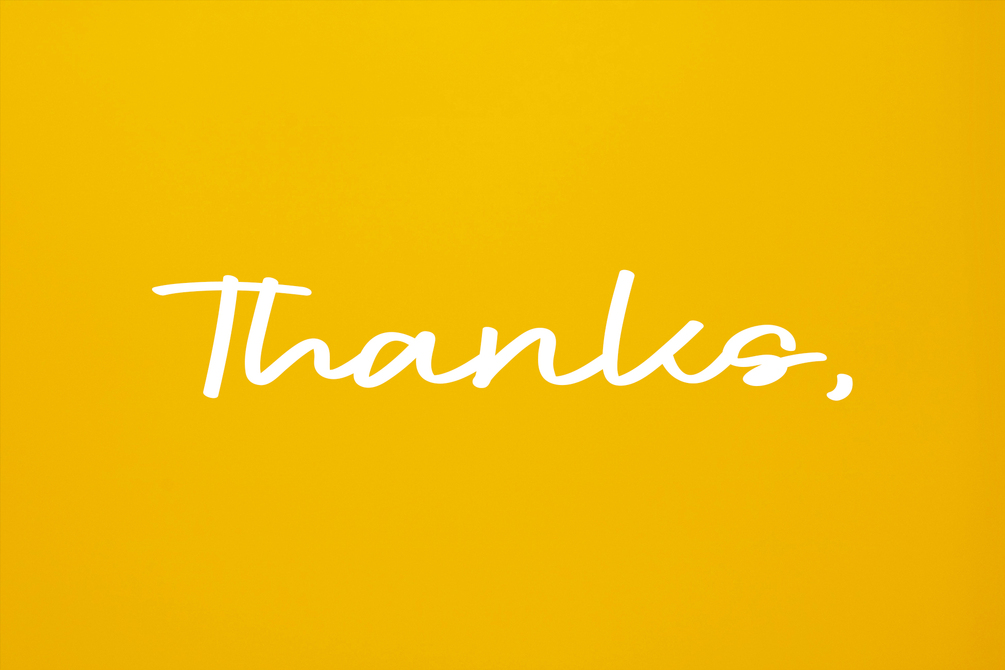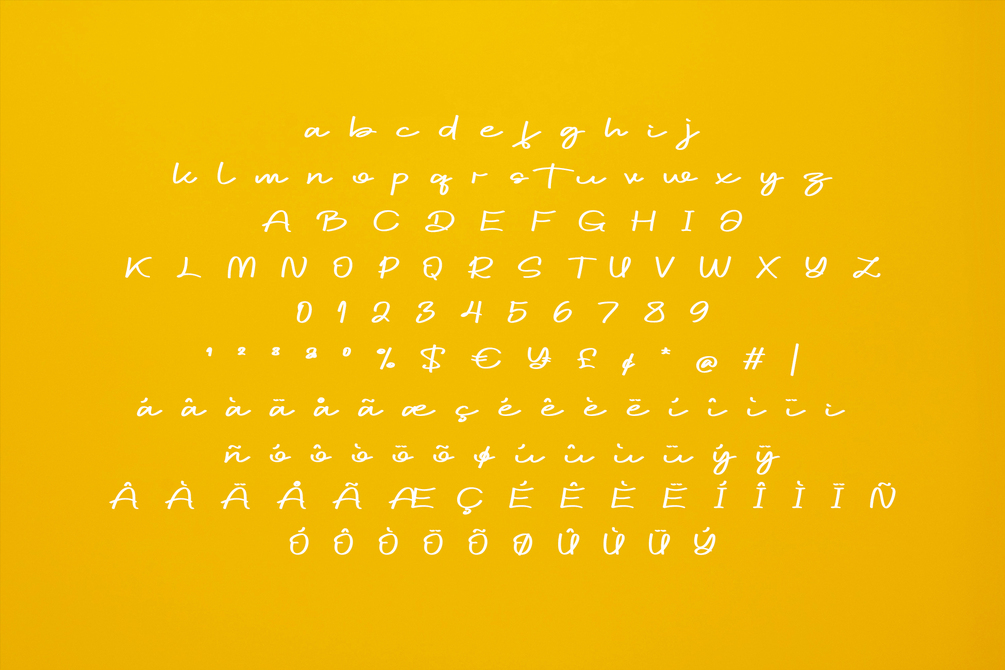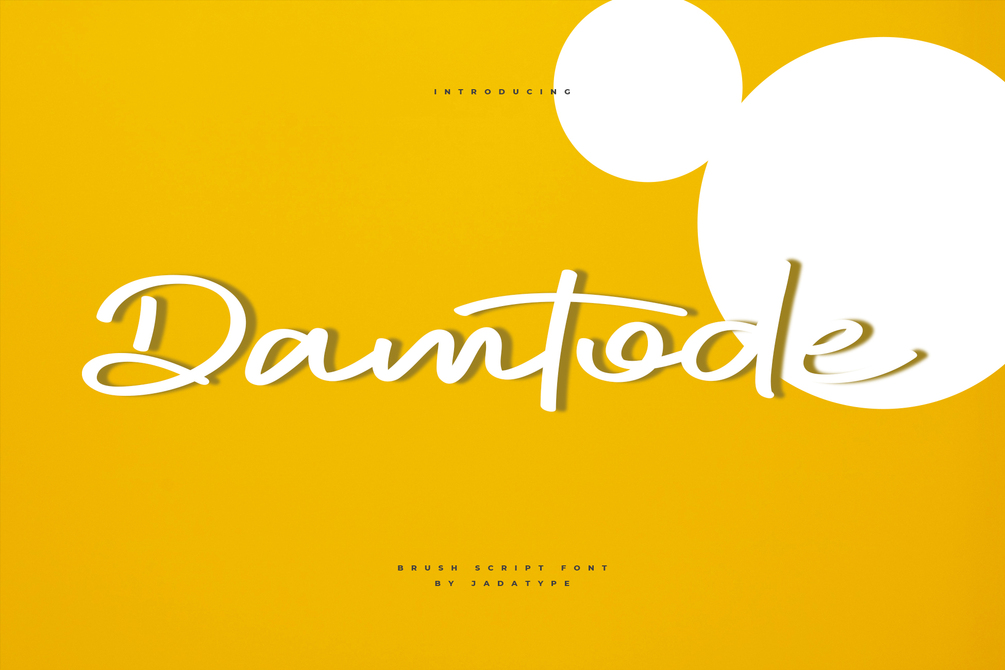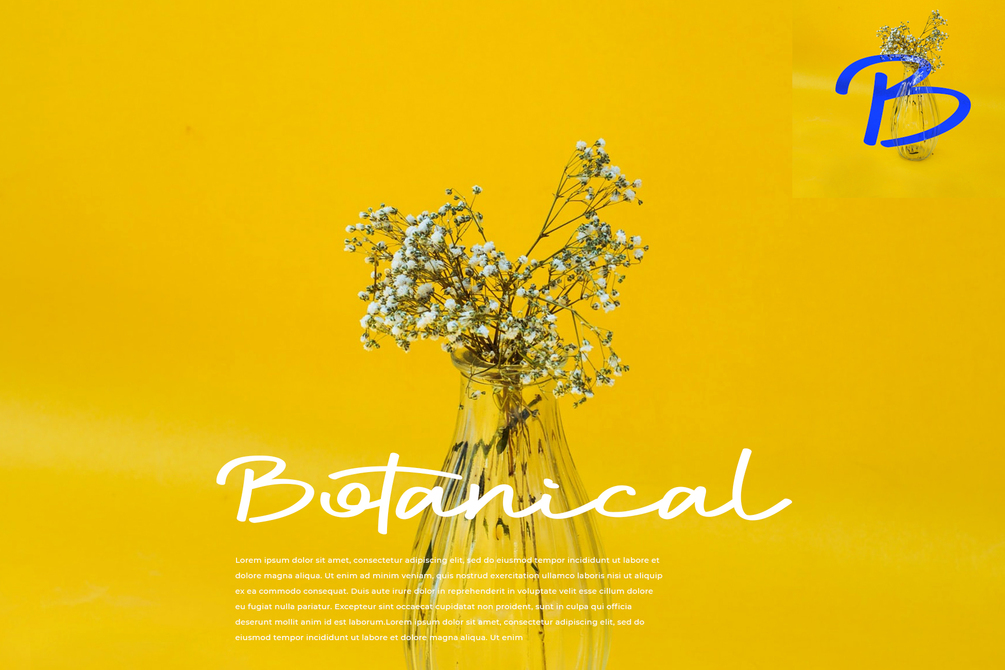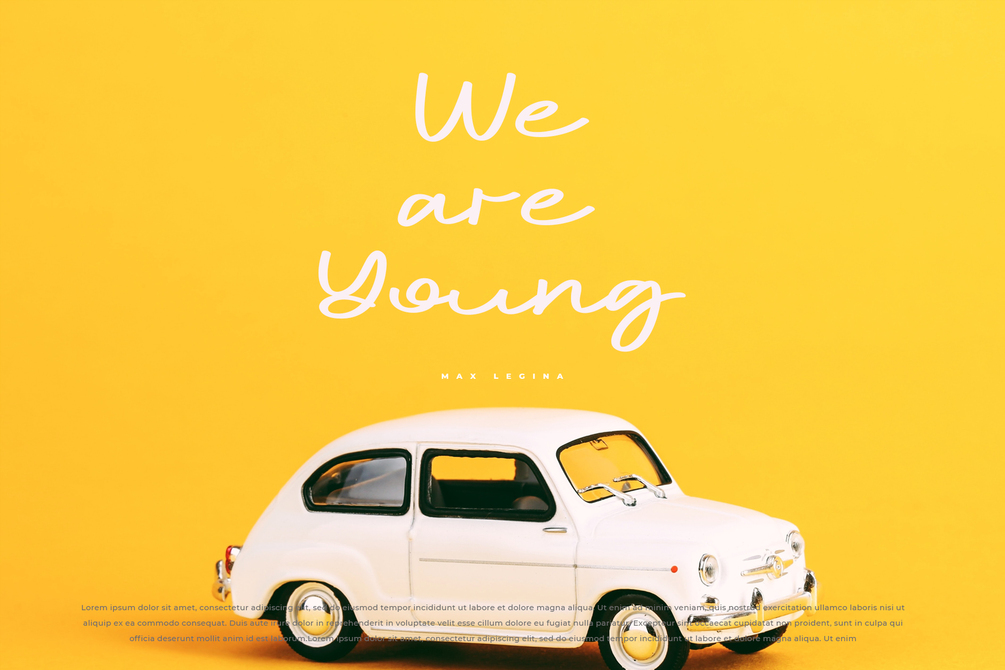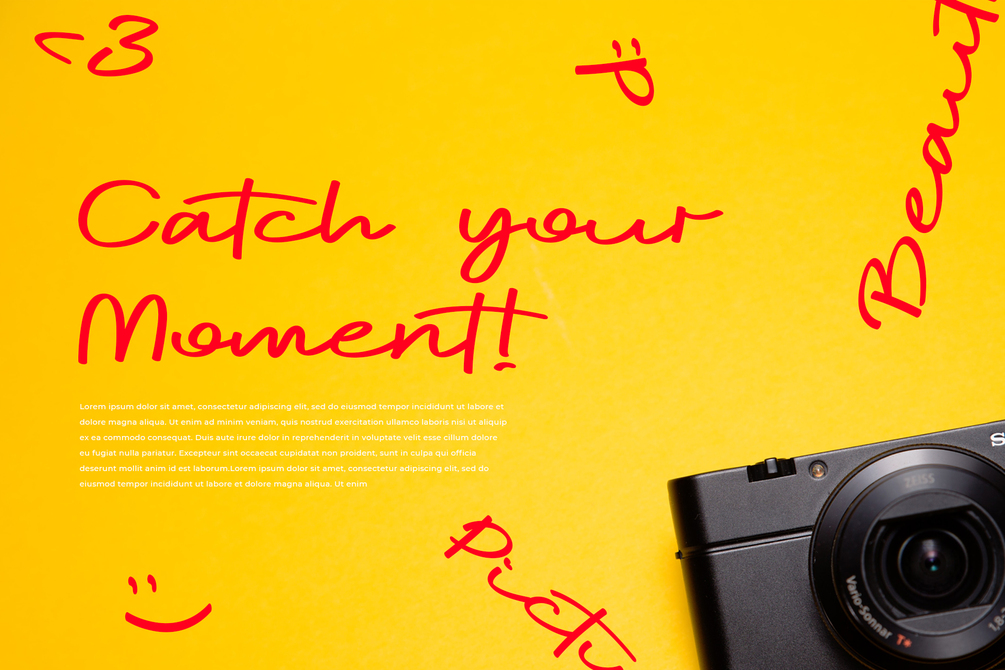
Damtode Font
Damtode is a font with a brush script. suitable for tshirt, logotype, branding, social media, music cover, and so on. contains standard English letters, numbers, punctuation, and several accents that support multilingualism.